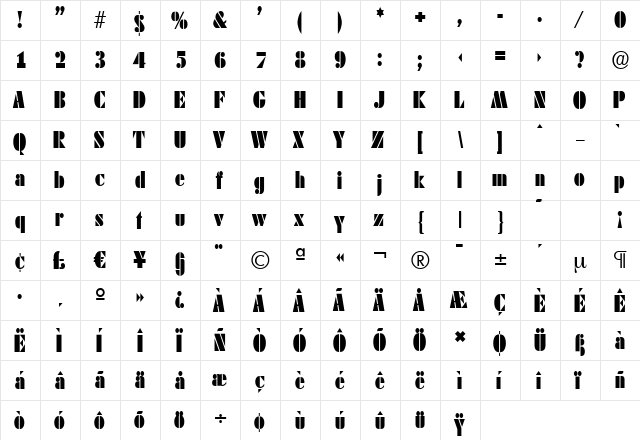
DekoBlackCondSerial Regular
Design Context for DekoBlackCondSerial Typeface
DekoBlackCondSerial offers clean, dependable letterforms without strong stylistic allegiance, making it a practical choice for designers who need flexibility. Its narrow stance lets it pack a punch even in space-constrained designs.